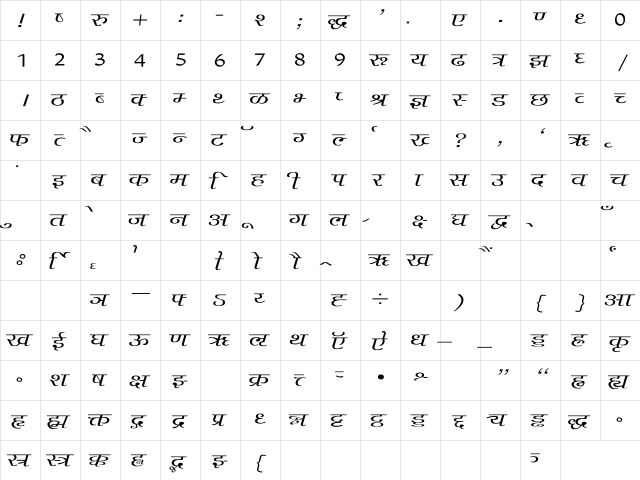
Agra Wide Regular
Design Context for Agra Wide Typeface
Agra Wide takes a measured approach to typography — its balanced proportions and neutral character make it a reliable workhorse for both digital and print work.